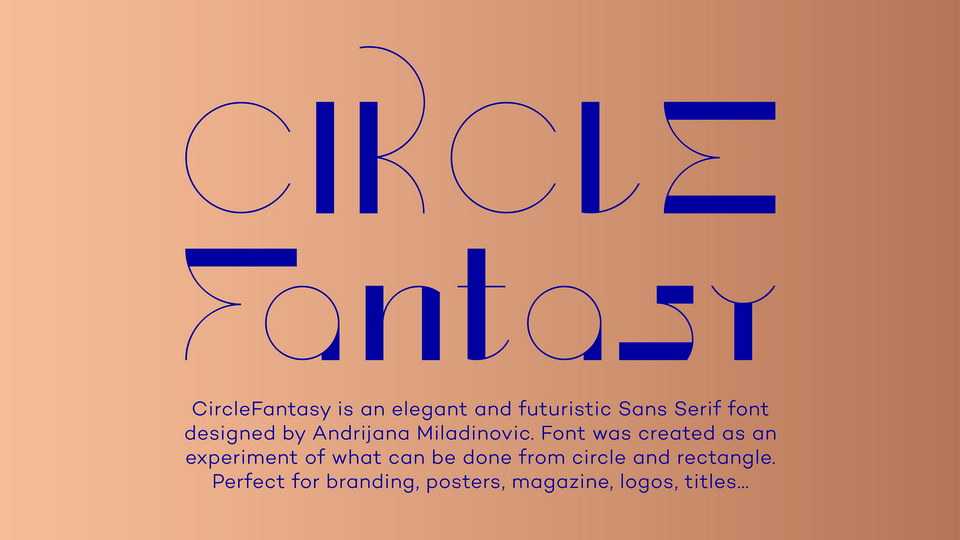
Download Circle Fantasy font, an elegant and futuristic sans serif typeface. Circle Fantasy was created as an experiment of what can be done from combining circular and rectangular shapes.
Designer: Andrijana Miladinovic